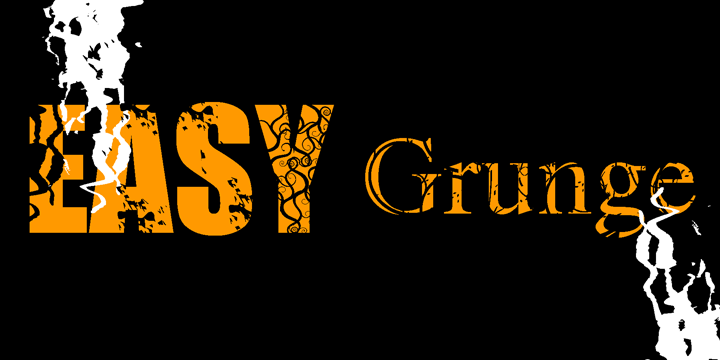
Easy Grunge is the easy and quick way to add grunge effects to your fonts, graphics and photographs. Grunge effects can be created in 3 easy steps with Adobe Photoshop, Photoshop Elements, Illustrator, InDesign or almost any program where you can create a layer. Here is the easy basic method but many variations can be used.
1 Create a new 8.5 x 11 document with your desired type set in black and set to desired type size or start with a photograph or graphic.
2 Create a new layer on top of your background and type layer and type Easy Grunge letters or numbers at about 50 points to start with. More…
3 Highlight the easy grunge type and set the color to white.
That’s it!
Now just move your Easy Grunge layer over your background type or photograph for the effect you want. Outer glow, drop shadows, inner glow and multiple effects can be added. The possibilities are endless.
Easy Grunge